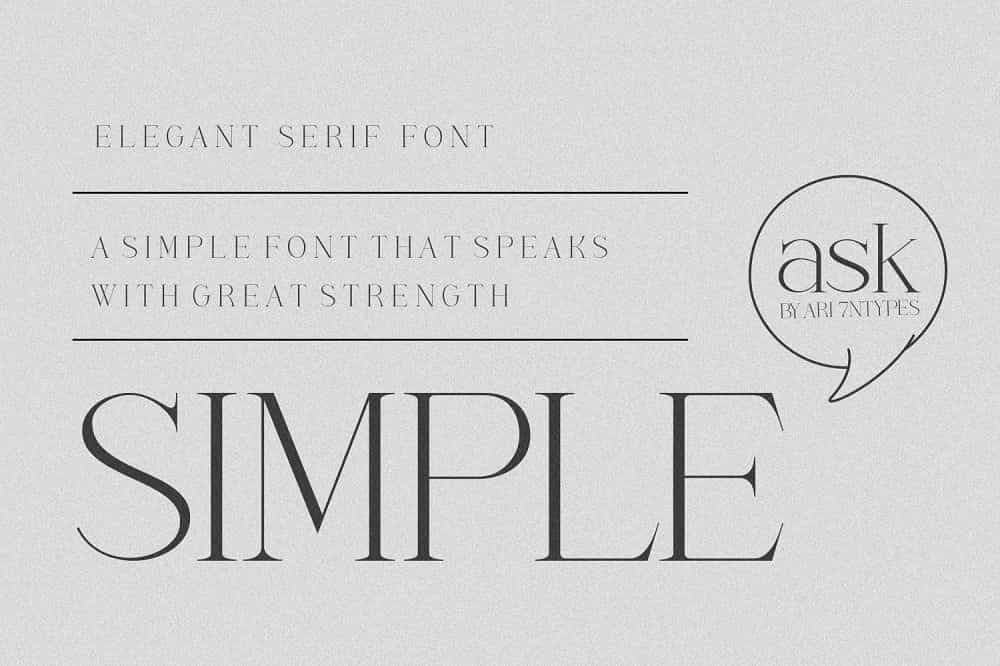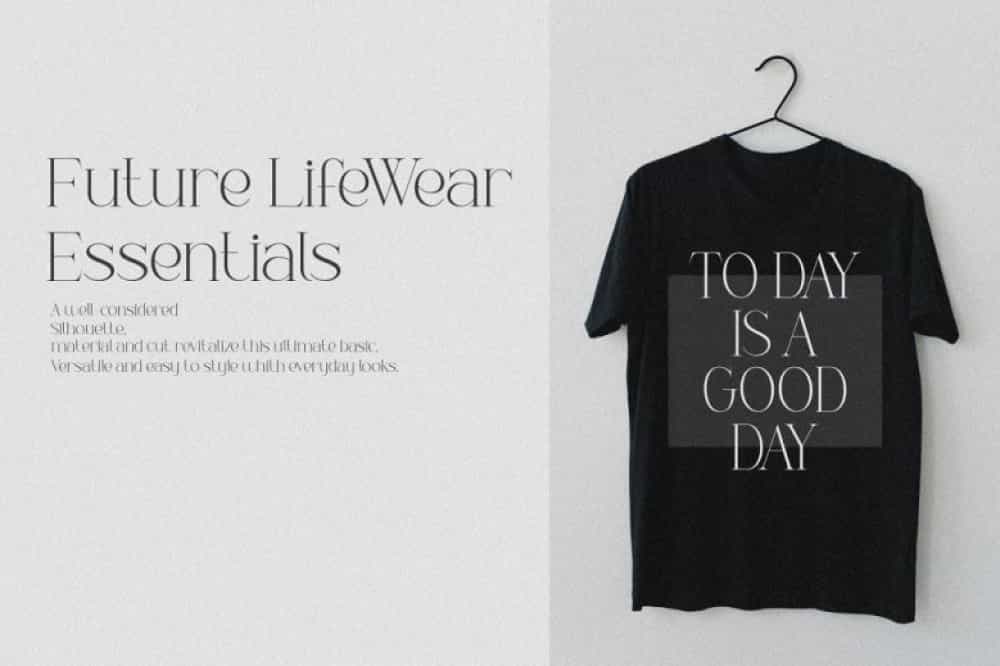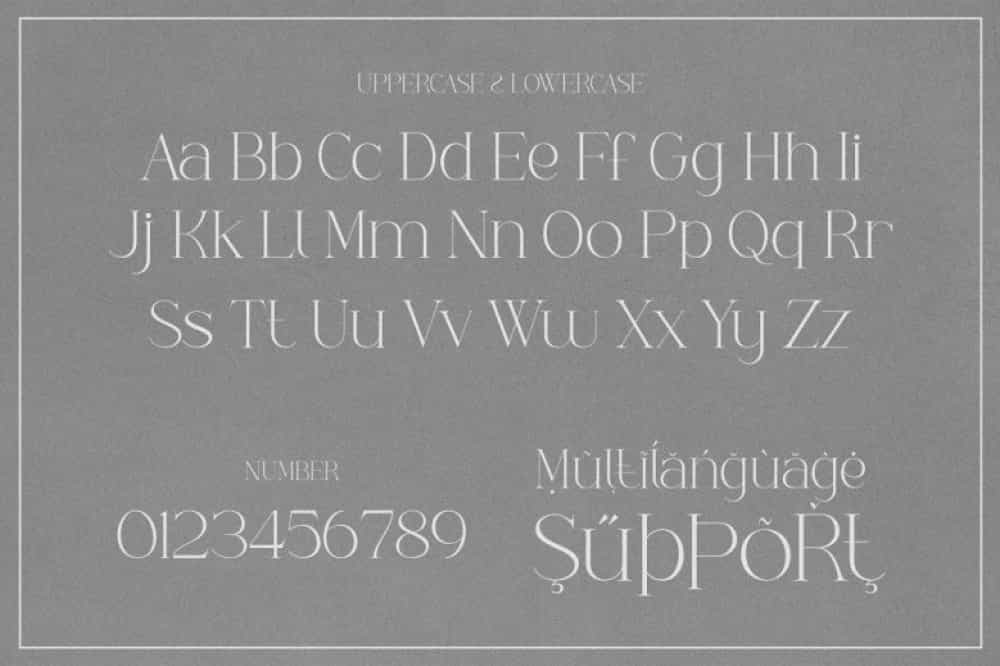
Simple Ask is a elegant and clean serif font that has a sophistication look to it. It has a classical look that is suitable for formal text, invitations, and a serious branding. These clean and classic lines of the font will give a professional look to any project you are working on.